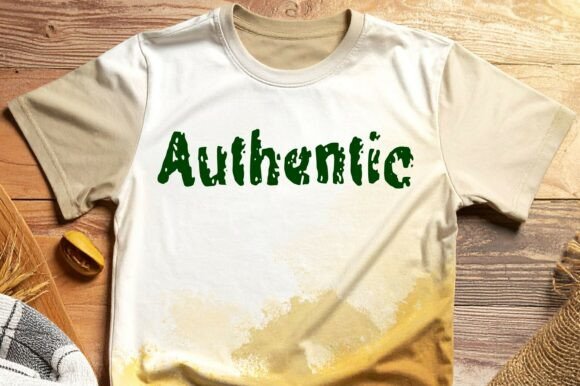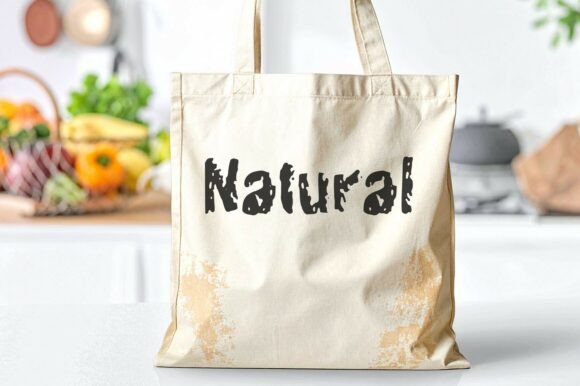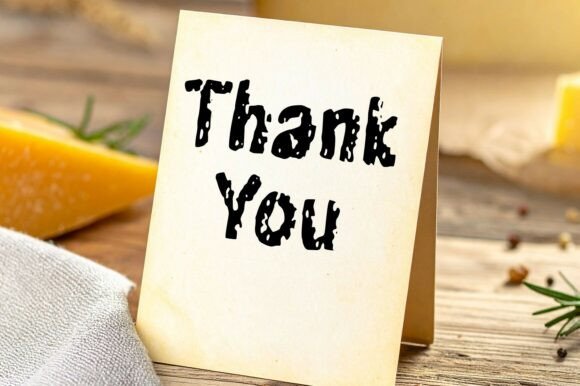
Looking for a font that feels like a warm hug from the countryside? Meet Cheese Hunter, a handcrafted display font designed to bring a bit of artisanal soul back into the digital world.
Why you’ll love it:
- Perfectly Imperfect: With its organic textures and “faintly wobbly” lines, it has that authentic, stamped look that screams craftsmanship.
- Warm & Welcoming: It strikes that rare balance between bold strength and a casual, relaxed vibe. It’s rugged, yet totally approachable.
- The Full Package: You get a complete set of upper and lowercase letters, numbers, and punctuation—all featuring that same signature hand-painted texture.
Where to use it:
Cheese Hunter is your new best friend for anything that needs a personal touch. It’s a dream for:
- Food & Beverage: Think artisanal cheese labels, bakery menus, or farmers’ market stalls.
- Eco-Friendly Brands: Perfect for handmade goods, craft tags, and “green” logos.
- Events & Socials: Give your farm-to-table invitations, organic market branding, or eco-friendly event promotions a personal touch.
The Story Behind Cheese Hunter
Cheese Hunter was born from a desire to capture the essence of traditional craftsmanship in a digital font. The creator wanted to bring back the feeling of hand-painted signs and artisanal labels that are often seen in rural settings. The result is a font that feels like a breath of fresh air, evoking memories of countryside markets and homemade goods.
Key Features of Cheese Hunter
- Handcrafted with love: Each letter has been carefully hand-painted to give it a unique, organic feel.
- Texture and imperfections: The font includes subtle textures and imperfections that give it a genuine, handcrafted look.
- Versatile: Use it for titles, headings, or any short text that needs a personal touch.
- Easy to read: Despite its rustic charm, Cheese Hunter remains clear and legible, making it perfect for a variety of uses.
What Makes Cheese Hunter Special?
Cheese Hunter stands out from other fonts due to its unique blend of rustic charm and modern usability. Here are a few reasons why it’s a must-have for designers and crafters:
- Authentic look: The font’s organic texture and hand-painted feel make it look like it was crafted by hand.
- Emotional connection: Using Cheese Hunter can help create an emotional connection with your audience, making your brand or project feel more approachable and personal.
- Time-saving: With Cheese Hunter, you don’t have to spend hours designing custom letters or labels. The font is ready to use, right out of the box.
- Branding: Use Cheese Hunter for your logo, packaging, or marketing materials to give your brand a rustic, artisanal feel.
- Signage: Create eye-catching signs for events, markets, or storefronts that capture the essence of traditional craftsmanship.
- Digital content: Add a personal touch to your website, social media posts, or email newsletters with headings or quotes in Cheese Hunter.
Cheese Hunter is more than just a font—it’s a way to bring a bit of artisanal charm into your digital world. With its handcrafted feel, organic textures, and warm personality, it’s the perfect choice for designers and crafters looking to add a personal touch to their projects. Whether you’re working on a food label, a craft project, or an event invitation, Cheese Hunter is sure to make your work stand out.